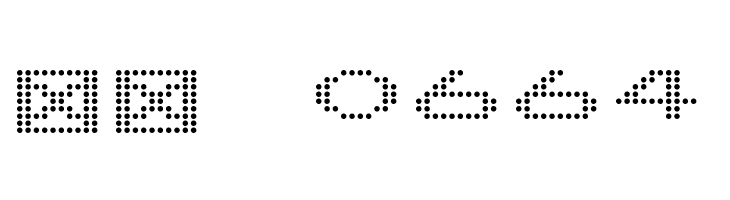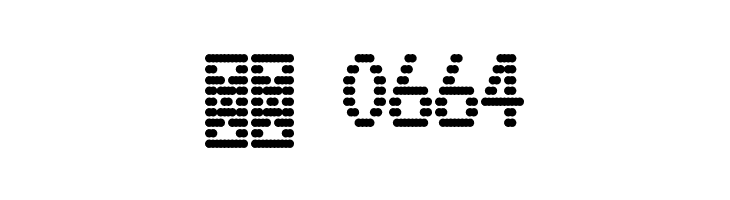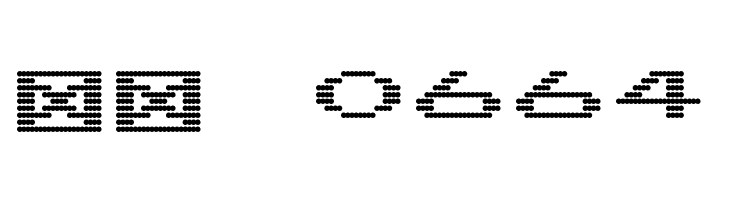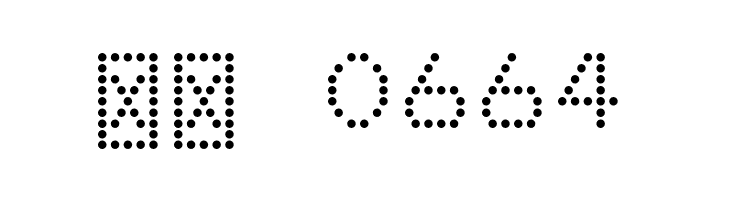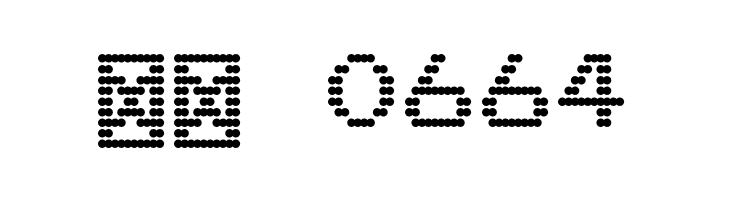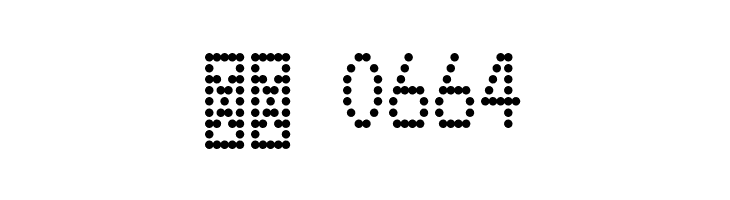
A bold, playful font with blocky, geometric characters.
A bold, three-dimensional font with geometric and vintage elements.
A bold, three-dimensional font with a modern, geometric style and shadowed effect.
A bold, distressed font with a rugged, weathered appearance.
A bold, playful handwritten font with thick strokes and quirky shapes.
A bold, playful handwritten font with thick strokes and rounded edges.
A playful, doodle-style font with bold, rounded characters and a hand-drawn aesthetic.
A bold, vintage-style font with a three-dimensional effect and dotted texture.
A modern, geometric font with consistent stroke width and a futuristic feel.
A bold, expressive brush-style font with dynamic strokes.
A whimsical and elegant script font with flowing, interconnected letterforms.
A futuristic, geometric font with bold, consistent strokes and dynamic cut-out designs.
A futuristic and abstract font with bold, geometric shapes and rounded edges.
A bold, thorny font with sharp accents for an edgy, gothic look.
A bold, graffiti-inspired outlined font with angular, geometric characters.
A bold, dot matrix style font with a retro-tech aesthetic.
A bold, condensed dot-based font with a modern and playful style.
A bold, expanded dot-matrix style font with a retro digital display vibe.
A modern, dotted font with a geometric and digital appearance.
A dot matrix style font with a retro digital display aesthetic.
A modern, dotted font with a playful and distinctive style.
A playful, dotted font with a whimsical, hand-drawn style.
A decorative font with intricate geometric patterns and bold strokes.
An elegant, cursive handwritten font with fluid connections and decorative swashes.
An ornate font with intricate Chinese-inspired motifs and decorative elements.
A decorative font with intricate floral designs within each letter.
A decorative font with intricate floral designs replacing traditional letters.
Ornamental font with Japanese-inspired emblematic illustrations.
A flowing, cursive font with elegant, connected letters and a calligraphic style.